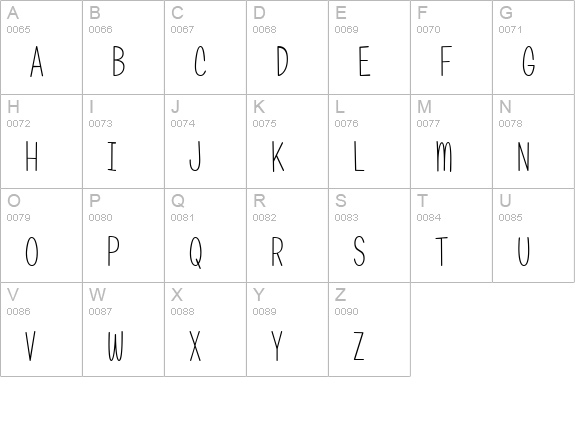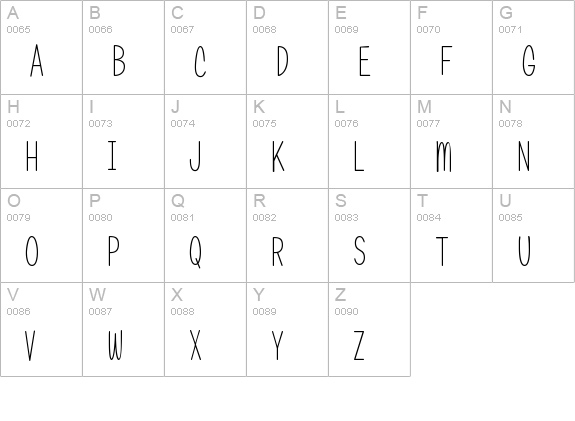
Candy Round BTN Cond Lt Font Details
Candy Round BTN Cond Lt is a distinctive, condensed-width variant in the Candy typeface family \xE2\x80\x94 well suited to design and typography projects.
Candy Round BTN Cond Lt font is a delightful and playful typeface that exudes a sense of fun and whimsy. With its rounded edges and bubbly appearance, this font is perfect for adding a touch of sweetness to your designs. Whether you're working on a project for a children's book, a party invitation, or a candy store logo, Candy Round BTN Cond Lt will bring a smile to your audience's face. Best of all, this charming font is available for free download at FontsMarket.com. So go ahead and add a sprinkle of joy to your designs with Candy Round BTN Cond Lt!